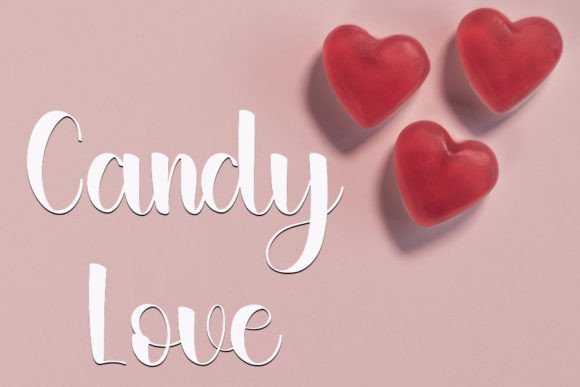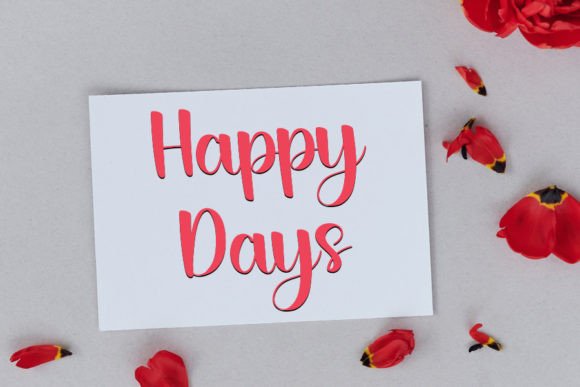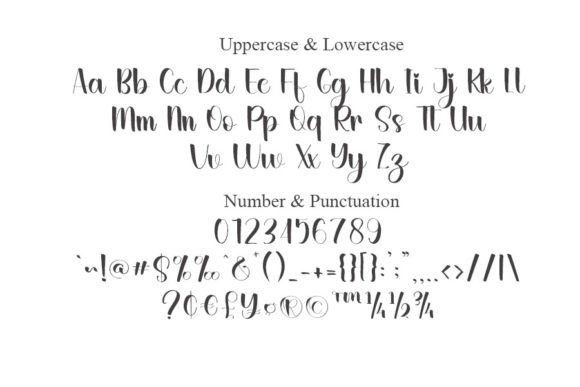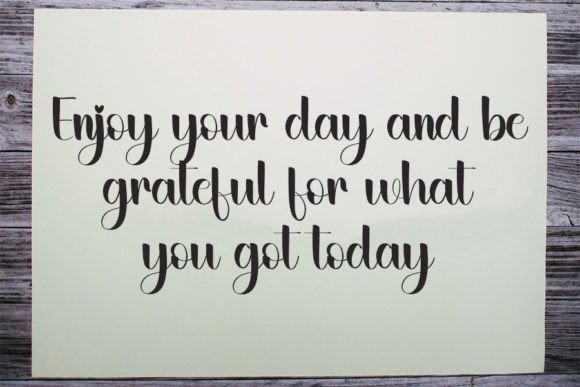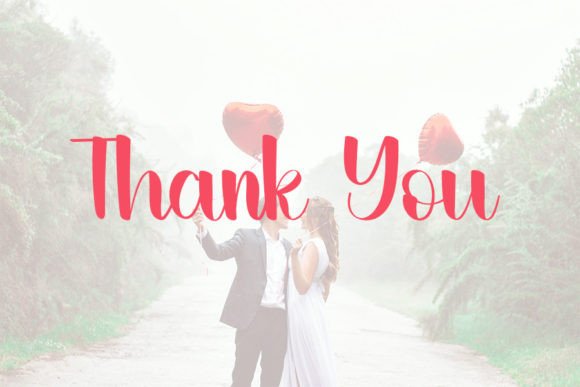
Valentines Font
Add Romance and Elegance with Valentines Handwritten Font
The Valentines Handwritten Font is a trendy script that effortlessly blends modern charm with timeless calligraphic beauty. With its fluid lines and elegant letterforms, this font is the perfect choice for designs that aim to convey love, grace, and sophistication.
Perfect for Romantic Designs and Elegant Branding
Valentines is ideal for a wide range of design projects. Use it for wedding invitations, event announcements, greeting cards, or Valentine’s Day promotions. Its refined aesthetic also makes it suitable for branding, social media graphics, and luxury product packaging.
Whether you’re creating designs for personal events or building a high-end visual identity, Valentines offers just the right blend of charm and class.
Inspired by Classic Calligraphy with a Modern Twist
What sets the Valentines Handwritten Font apart is its seamless fusion of traditional calligraphy and contemporary design. Each character is thoughtfully drawn to reflect the natural flow of hand lettering while maintaining a clean and modern structure.
The slightly exaggerated curves and fluid transitions give your text a sense of movement and emotion—perfect for conveying romance, elegance, and creativity.
Exceptional in Both Print and Digital Formats
Valentines is crafted to perform beautifully across both print and digital applications. Whether you’re designing a wedding suite, a logo, or a website header, this font maintains its quality, clarity, and visual appeal at any scale.
Pair it with a classic serif or minimalist sans-serif font for a sophisticated and balanced typographic layout. This combination works especially well for invitations, product branding, or high-end promotional materials.
Why Designers Choose Valentines Handwritten Font
Here’s why creatives love using Valentines:
• Elegant handwritten script with a romantic flair
• Perfect for weddings, cards, branding, and events
• Inspired by timeless calligraphy with a modern edge
• Legible and stylish across all formats and sizes
Make Your Designs Stand Out with Romantic Detail
In conclusion, the Valentines Handwritten Font is a stunning script typeface that adds emotion, elegance, and charm to any project. Its graceful design and versatile style make it ideal for everything from romantic stationery to luxurious branding.
If you’re looking for a font that speaks the language of love while maintaining a stylish, contemporary feel, Valentines is the perfect choice.